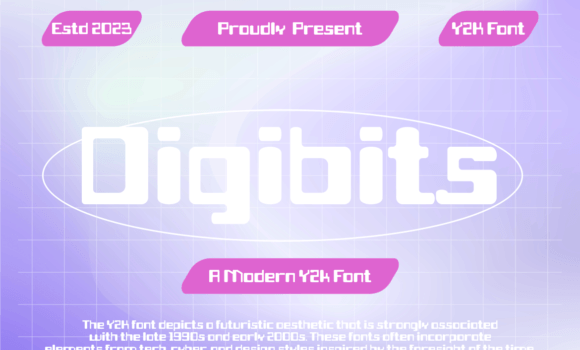
digibits
Digibits Font – Free Download Introduction to Digibits Font This Font is a visual representation of the Y2K (2000) aesthetic featuring futuristic style, technology, and digital elements from the early 2000’s. 📸 Preview Gallery 5 images 📌 Product Name Digibits